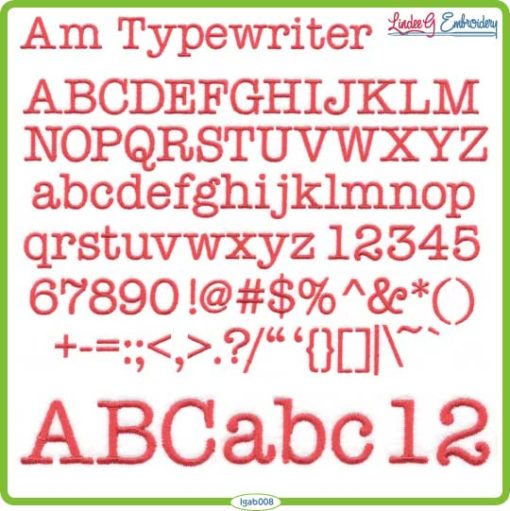
American Typewriter is a serif machine embroidery font that includes A-Z, a-z, 0-9 and the following punctuation: ~`!@#$%^&*()-+={}[]|:;”‘<>,.?/ (93 total characters).